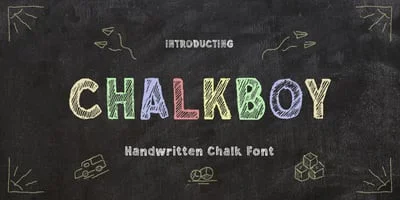
Chalkboy Font
Chalkboy Font is perfect for educational materials, children's book covers, classroom posters, school branding, playful logos, craft projects, handwritten-style designs, and creative presentations that require a friendly, approachable aesthetic.
What makes Chalkboy Font exciting is its authentic chalkboard texture that brings nostalgic classroom vibes to any design project. This hand-drawn typeface captures the spontaneous, imperfect beauty of chalk writing on a blackboard, making it ideal for designers who want to add personality and warmth to their work. The font's playful character and readable structure make it versatile enough for both digital and print applications.
Whether you're creating educational content, designing children's materials, or developing branding for creative businesses, Chalkboy Font offers the perfect balance of professionalism and playfulness. This distinctive typeface transforms ordinary text into engaging visual elements that capture attention and create memorable impressions. The font's versatility extends from web design to print materials, making it an excellent addition to any designer's toolkit. Download this charming font today and bring that authentic chalkboard magic to your next creative project.